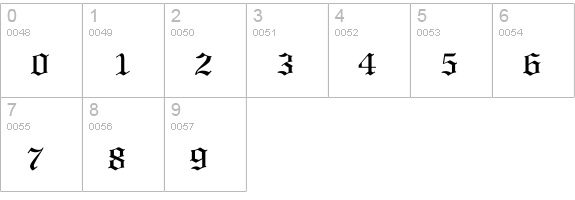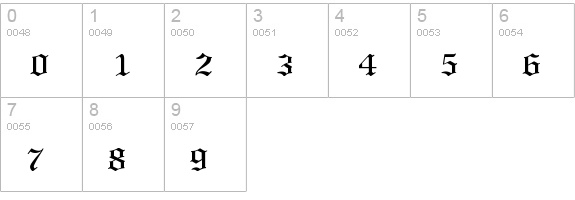
Old English Font Details
The Old English font exudes a sense of timelessness and elegance with its intricate, medieval-inspired letterforms. This classic typeface brings to mind the grandeur of ancient manuscripts and the rich history of calligraphy. The Old English font is perfect for adding a touch of sophistication to your designs, whether you're creating invitations, posters, or branding materials. Best of all, this exquisite font is available for free download at FontsMarket.com. Embrace the charm and tradition of Old English script with this freely accessible typeface that will add a touch of vintage flair to your projects. Download it today and bring a touch of old-world charm to your design work.